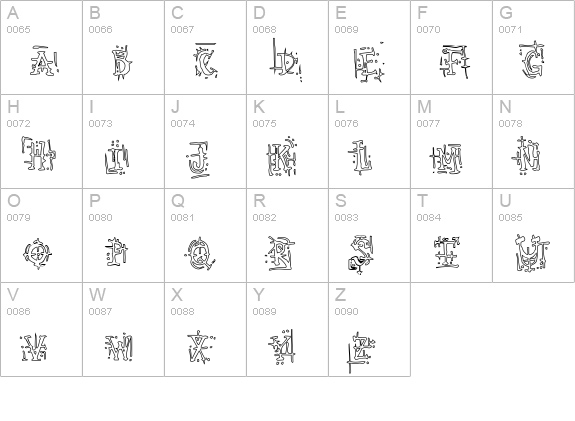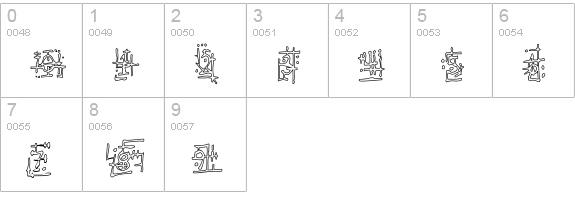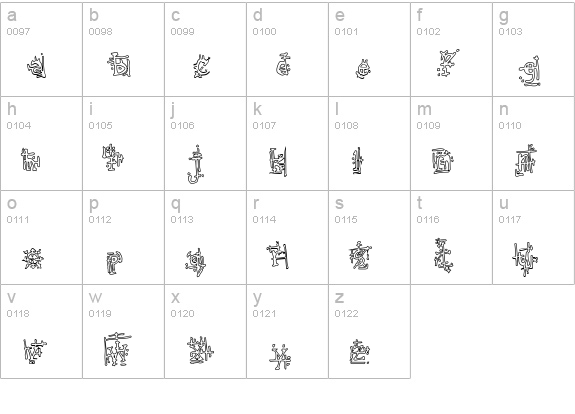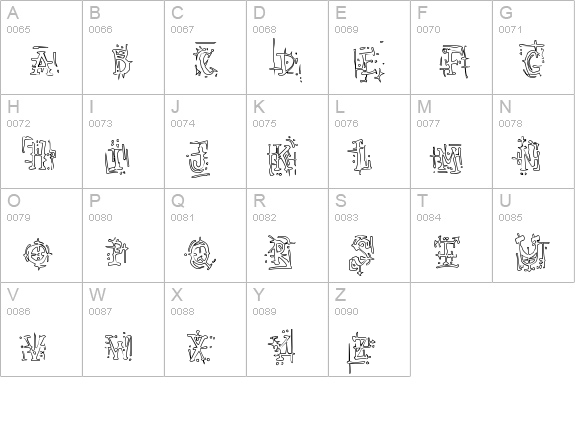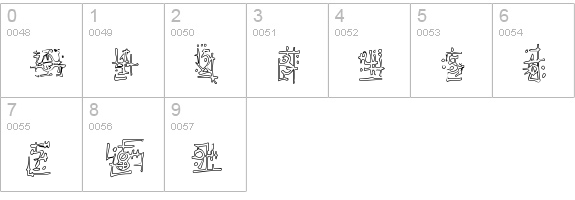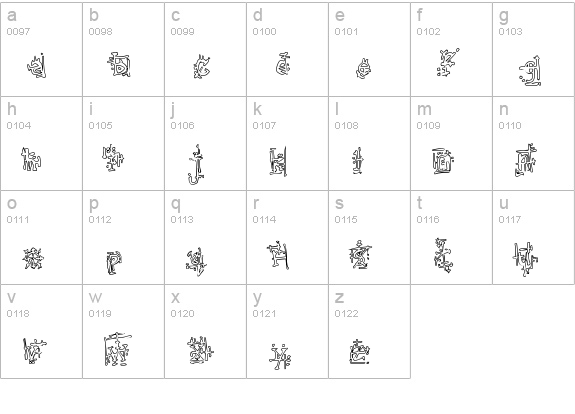
Armaggedon Industrial Hollow Font Details
Introducing Armaggedon Industrial Hollow font, a bold and edgy typeface that perfectly captures the essence of industrial design. With its sharp, angular lines and hollowed-out letterforms, this font exudes a sense of strength and power. Armaggedon Industrial Hollow is ideal for projects that require a tough and rugged aesthetic, such as posters, album covers, and branding materials for heavy metal bands or industrial companies. Its unique style will make your designs stand out and leave a lasting impression on viewers. And the best part? Armaggedon Industrial Hollow font is available for free download at FontsMarket.com. So go ahead and unleash your creativity with this striking typeface that is sure to make a bold statement in your designs.